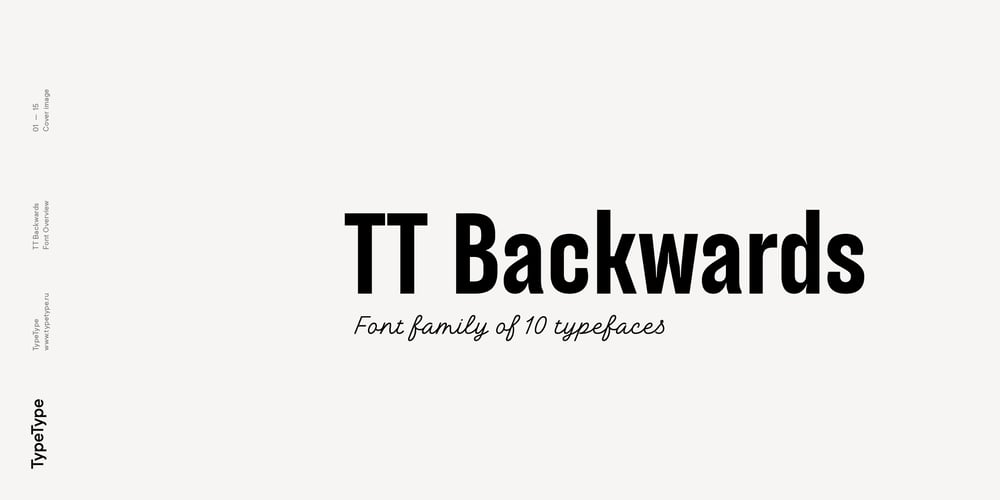
TT Backwards Font Family was designed by Tanya Cherkiz, Sergey Kotelnikov, TypeType Team and published by TypeType. TT Backwards contains 10 styles and family package options. TT Backwards useful links:Specimen | Graphic presentation | Customization options About TT Backwards: TT Backwards is an experimental font project inspired by the USSR typography and fonts of the late 70s and early 80s. Shop signs, posters, and book design—this is where we drew the inspiration for our project. TT Backwards consists of two complementary font subfamilies, a Script and a Grotesque, each of them includes 5 typefaces in 5 different weights (Thin, Light, Regular, Bold, Black). TT Backwards Script is a noncontrast almost monolinear solid script inspired by shop signs, poster and book design of the USSR. TT Backwards Script features a large number of Latin and Cyrillic ligatures (more than 70 items), which allows to make the script versatile and sophisticated to the max. And thanks to the implementation of a huge number of context alternates, all lowercase letters are joined softly and without breaks, and they meet the uppercase letters beautifully and correctly. TT Backwards Script supports the following OpenType features: liga, case, ordn, frac, sups, sinf, numr, dnom, tnum, onum, pnum. TT Backwards Sans is a narrow grotesque, which takes us back to the book design of late 70s and early 80s with its ductile characters. It is created considering its use in the small text size. TT Backwards Sans has a number of pronounced peculiarities: high x-height, exaggerated extenders, and big visual compensators and ink traps. Apart from the basic visual solution, TT Backwards Sans contains two experimental stylistic sets, which markedly change the overall visual perception of the text. SS01 alters high-frequency symbols of the Cyrillic alphabet, and SS02 significantly changes the high-frequency symbols of the Latin alphabet.FOLLOW US:Instagram | Facebook | WebsiteTT Backwards OpenType features: case, ordn, frac, sups, sinf, numr, dnom, tnum, pnum, liga, zero, salt, ss01, ss02.TT Backwards language support: Acehnese, Afar, Albanian, Alsatian, Aragonese, Arumanian, Asu, Aymara, Banjar, Basque, Belarusian (cyr), Bemba, Bena, Betawi, Bislama, Boholano, Bosnian (cyr), Bosnian (lat), Breton, Bulgarian (cyr), Cebuano, Chamorro, Chiga, Colognian, Cornish, Corsican, Cree, Croatian, Czech, Danish, Embu, English, Erzya, Estonian, Faroese, Fijian, Filipino, Finnish, French, Friulian, Gaelic, Gagauz (lat), Galician, German, Gusii, Haitian Creole, Hawaiian, Hiri Motu, Hungarian, Icelandic, Ilocano, Indonesian, Innu-aimun, Interlingua, Irish, Italian, Javanese, Judaeo-Spanish, Kalenjin, Karachay-Balkar (lat), Karaim (lat), Karakalpak (lat), Kashubian, Khasi, Khvarshi, Kinyarwanda, Kirundi, Kongo, Kumyk, Kurdish (lat), Ladin, Latvian, Laz, Leonese, Lithuanian, Luganda, Luo, Luxembourgish, Luyia, Macedonian, Machame, Makhuwa-Meetto, Makonde, Malay, Manx, Maori, Mauritian Creole, Minangkabau, Moldavian (lat), Montenegrin (lat), Mordvin-moksha, Morisyen, Nahuatl, Nauruan, Ndebele, Nias, Nogai, Norwegian, Nyankole, Occitan, Oromo, Palauan, Polish, Portuguese, Quechua, Rheto-Romance, Rohingya, Romanian, Romansh, Rombo, Rundi, Russian, Rusyn, Rwa, Salar, Samburu, Samoan, Sango, Sangu, Scots, Sena, Serbian (cyr), Serbian (lat), Seychellois Creole, Shambala, Shona, Slovak, Slovenian, Soga, Somali, Sorbian, Sotho, Spanish, Sundanese, Swahili, Swazi, Swedish, Swiss German, Tagalog, Tahitian, Taita, Tatar, Tetum, Tok Pisin, Tongan, Tsonga, Tswana, Turkish, Turkmen (lat), Ukrainian, Uyghur, Vepsian, Volapük, Võro, Vunjo, Xhosa, Zaza, Zulu.